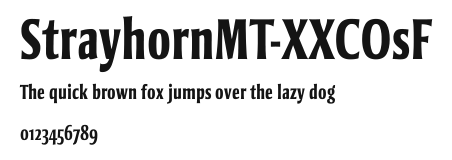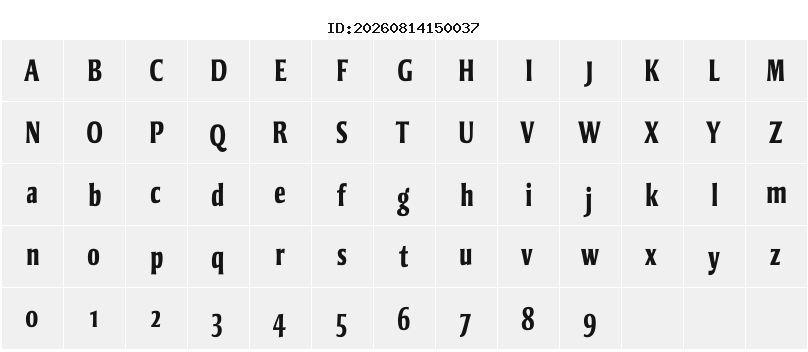
StrayhornMT-XXCOsF Preview
About StrayhornMT-XXCOsF.ttf
StrayhornMT-XXCOsF.ttf is a modern, elegant sans-serif font designed for ultimate readability and visual harmony. Perfect for branding, headlines, web design, and print materials.